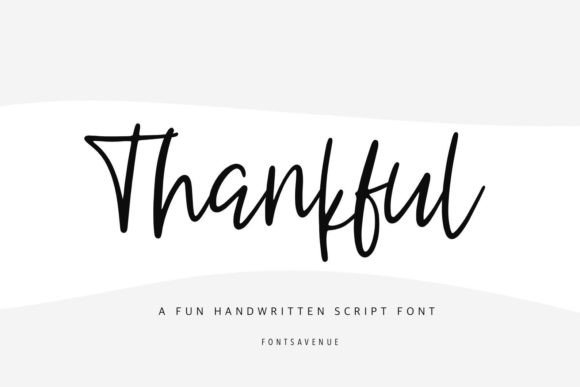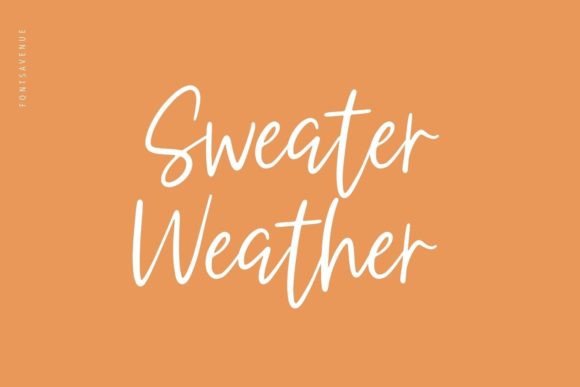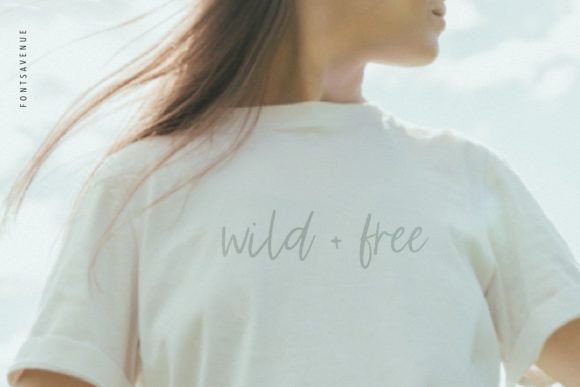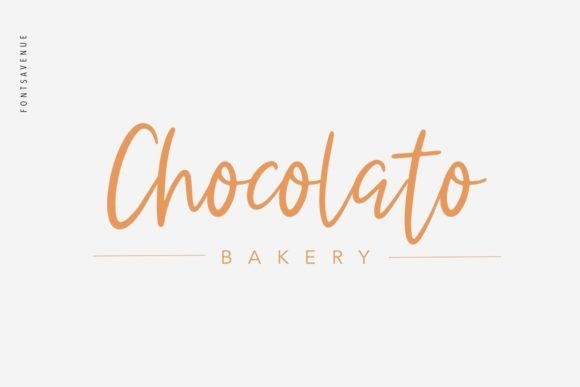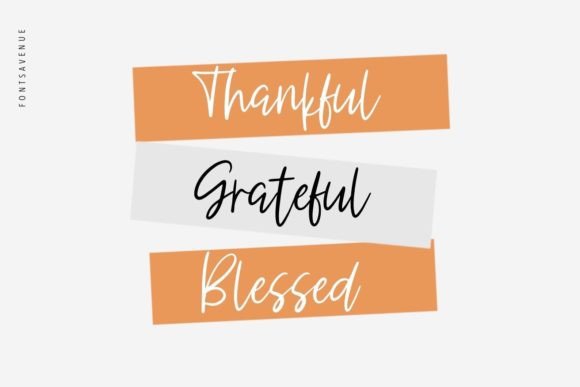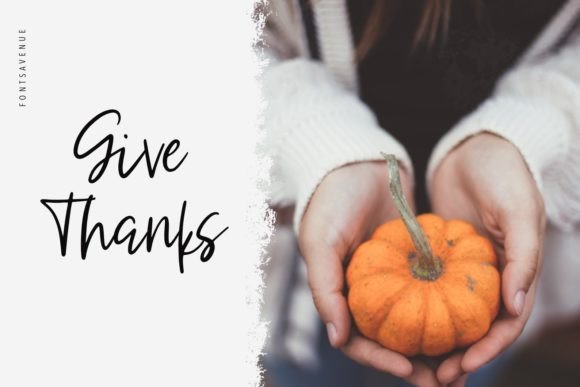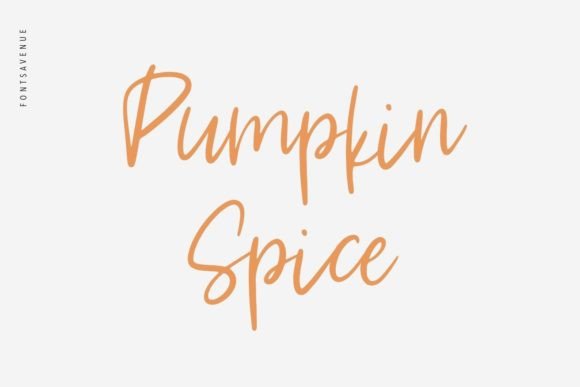
Thankful Font
About Thankful Font
Meet Thankful, a delightful handwritten script font designed to infuse fun and personality into your creative projects. Whether you’re working on invitations, logo design, branding, product packaging, quotes, or any other creative endeavor, Thankful is the perfect choice to add a touch of charm and warmth.
This playful script font is not just a typographic choice; it’s a versatile tool that brings a sense of joy to your designs. Picture the impact of Thankful on your invitations, instantly transforming them into cheerful and inviting expressions. Imagine your logo or branding adorned with the whimsical strokes of Thankful, adding a distinctive and friendly character to your visual identity.
With Thankful, the possibilities are endless. Its versatility makes it suitable for a wide range of applications, allowing you to explore and experiment with different design projects. The handwritten quality of Thankful adds a personal and authentic touch, making your creations stand out with a genuine and approachable feel.
In summary, Thankful is more than just a font; it’s a creative ally that enhances your projects with a fun and handwritten flair. Let it be the go-to choice that brings a smile to your designs, making them not only visually appealing but also infused with the joyful spirit of Thankful.